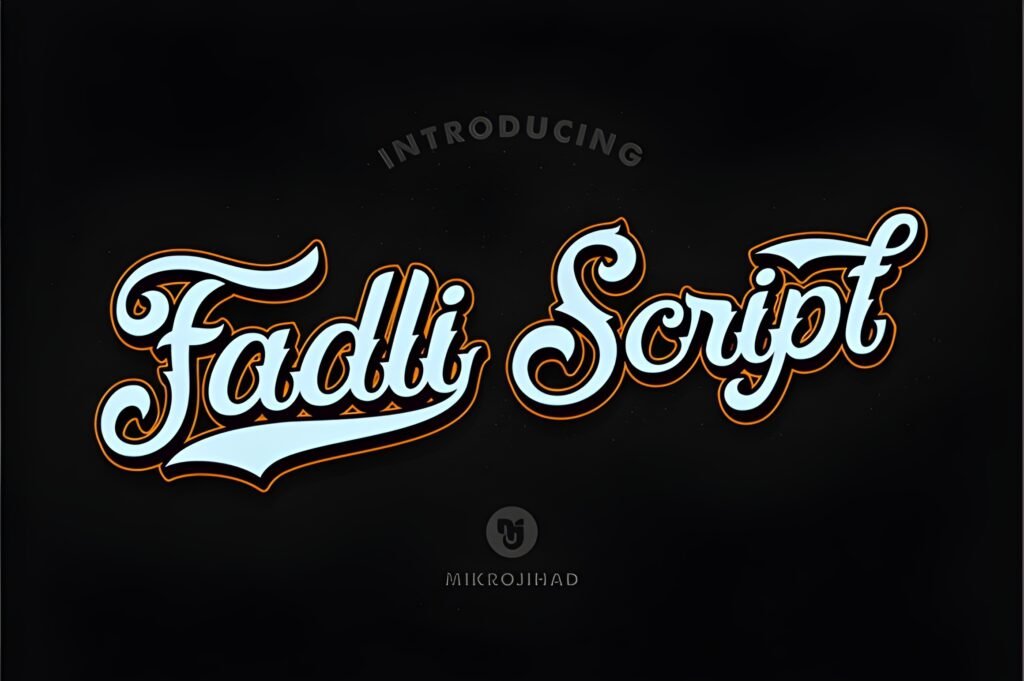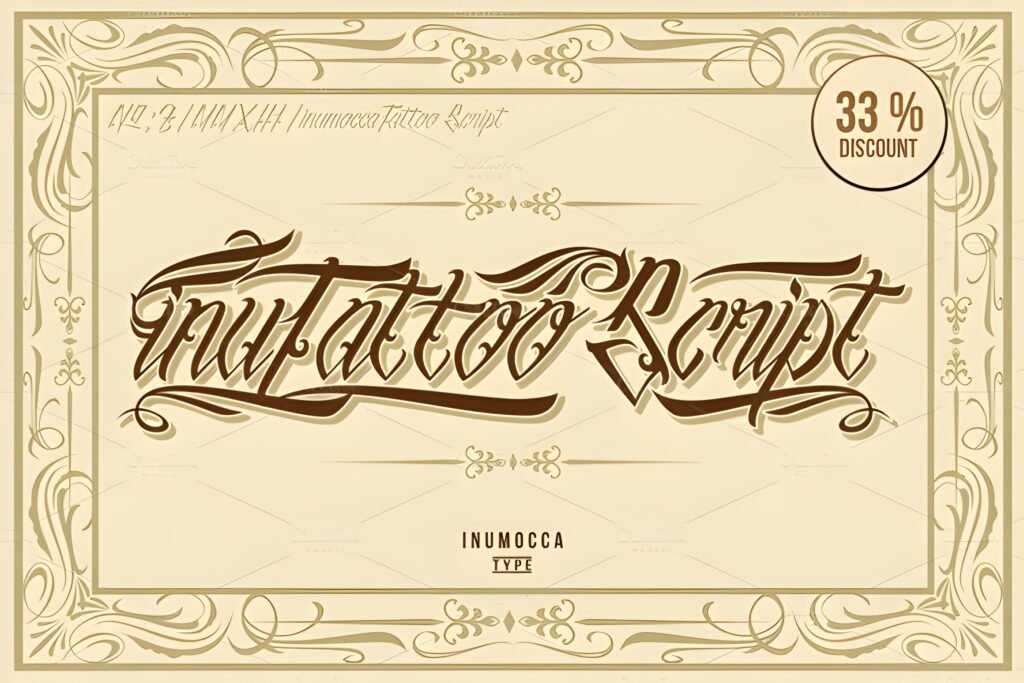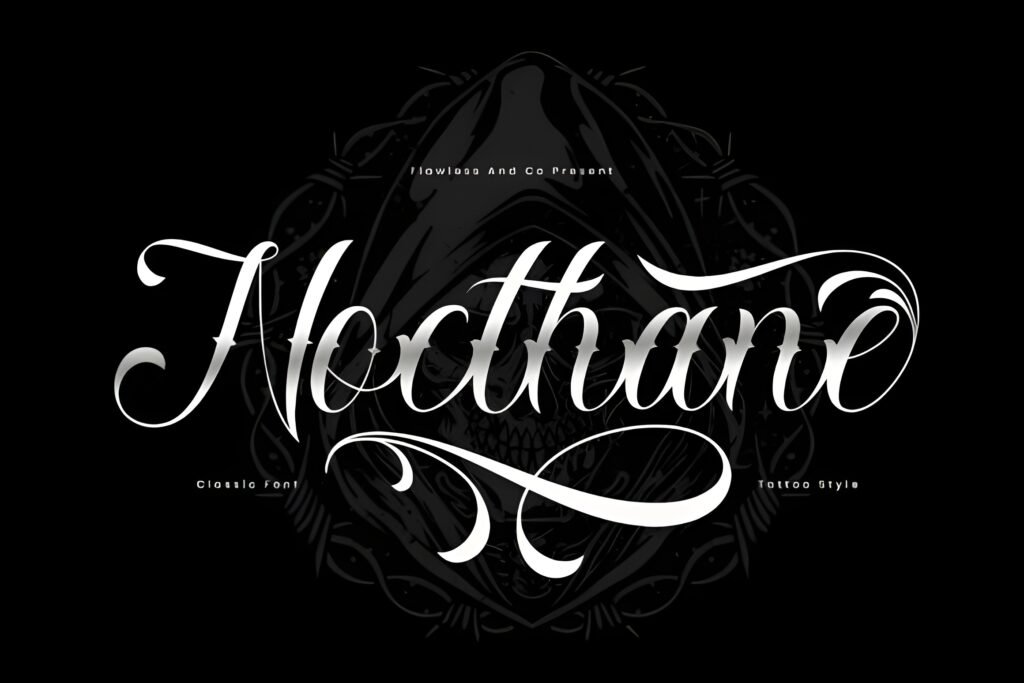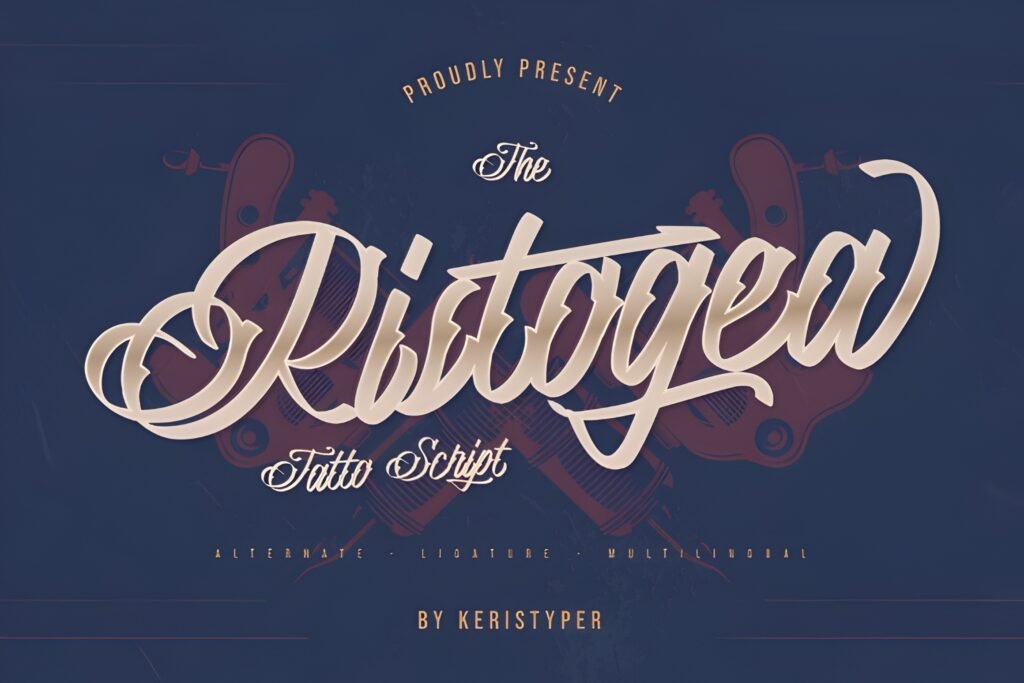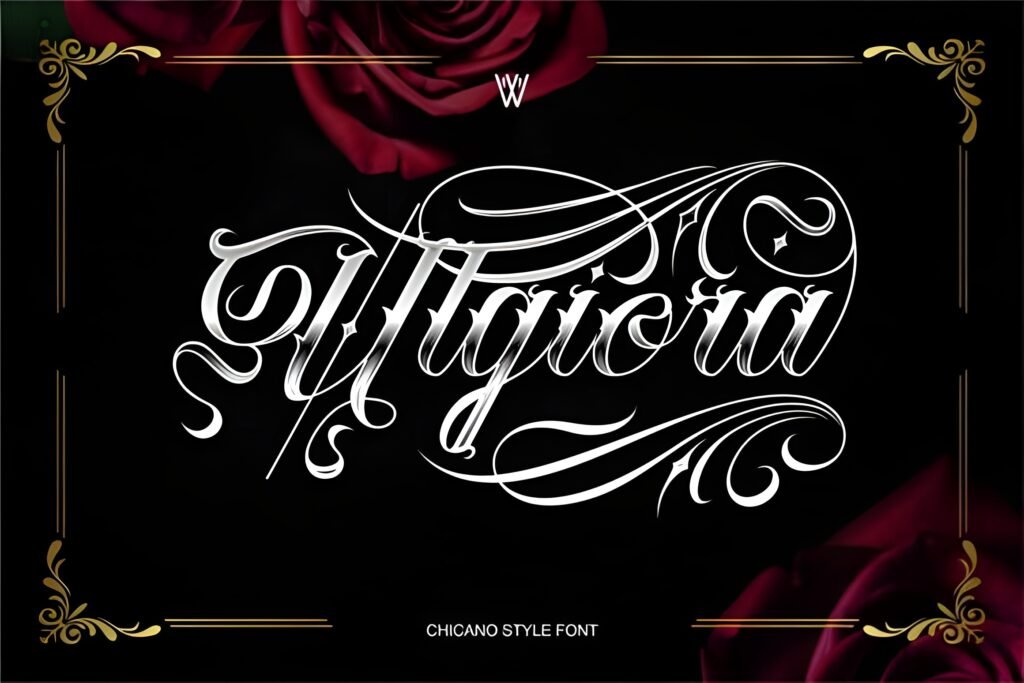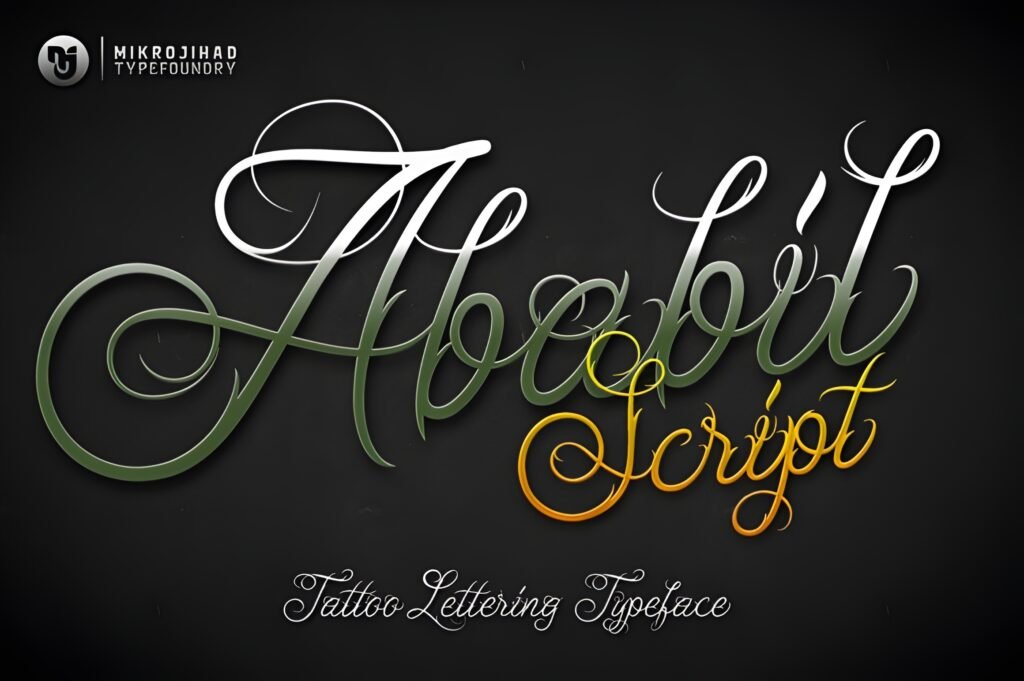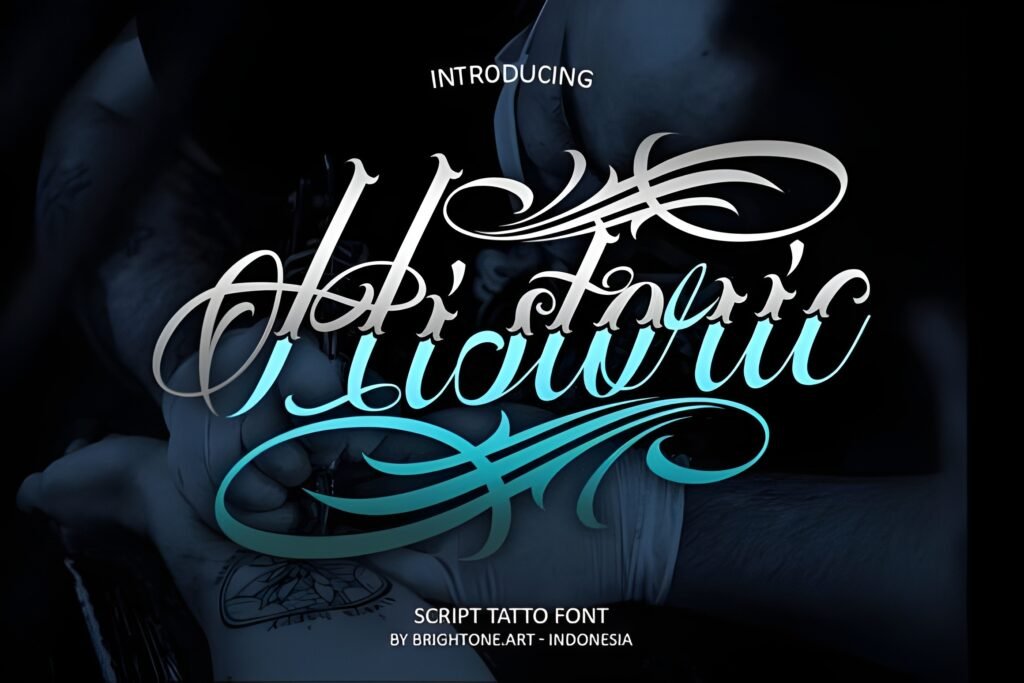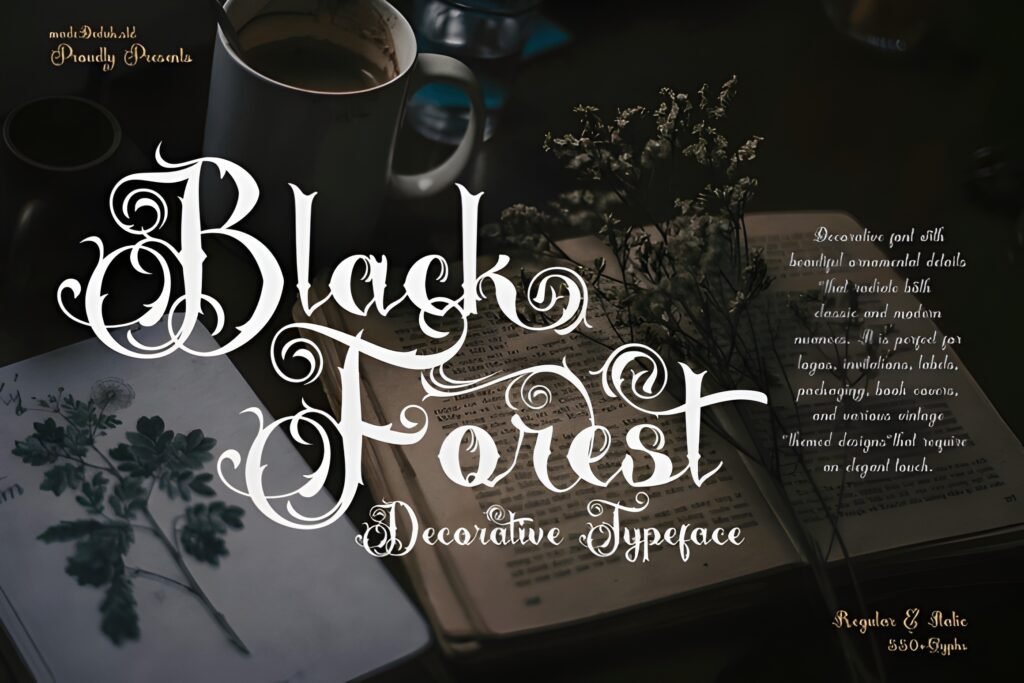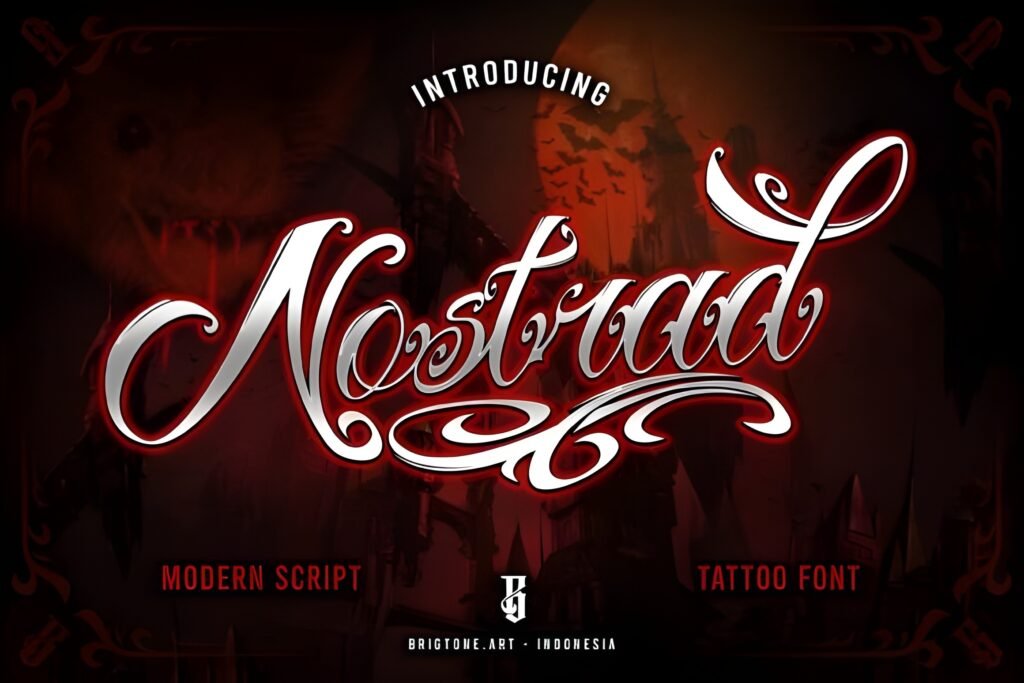
16 Best Script Font Styles for Tattoos
If you ask me what makes a script tattoo font worth using, the answer is never just “it looks cool.” A good tattoo-style script has to hold shape, flow naturally, and keep its character even when the design moves from a bold forearm piece to a small word under the collarbone. In a real tattoo workflow, that matters more than trendy swashes or flashy specimen images.
So in this guide, I’m sharing 16 script font styles for tattoos that I would actually consider when planning lettering-focused work. Some lean clean and elegant. Some are stronger for Chicano-inspired compositions. Some are better for names, quotes, or statement words. And a few are more decorative, which means they need a careful hand and the right placement to really work.
Quick Comparison Table
| Font | Best for | Style direction | My quick take |
|---|---|---|---|
| Chicago Font | Bold statement words, strong placements | Chicano / blackletter influence | Best when you want attitude and a heavy visual presence |
| Tattoo Lettering Font | Classic tattoo-style title lettering | Lettering / decorative display | A strong centerpiece font for poster-like tattoo compositions |
| Fadli Script Font | Names, quotes, elegant personal pieces | Smooth cursive script | One of the most usable options for refined script tattoos |
| InuTattoo Script Font | Tattoo-specific lettering looks | Tattoo script | One of the most on-theme fonts in the entire list |
| Ababil Script Full Font | Elegant script tattoos, refined names | Classic calligraphic script | A polished choice for graceful lettering with personality |
| Chicano Font | Lowrider and Chicano-inspired tattoo work | Chicano script | A top pick for bold cultural mood and strong lettering identity |
| Loyalty Chicano Font | Big statement pieces, sleeve or chest lettering | Blackletter / lowrider / tattoo style | The boldest top-tier option here for Chicano-inspired designs |
How I Choose Script Fonts for Tattoo Work
When I review script fonts for tattoo use, I judge them a little differently from someone building a logo or poster. In tattoo design, the line weight, spacing, and rhythm of the letters matter more because skin changes everything. A script that looks polished on a clean digital page can close up, lose contrast, or become unreadable once it’s scaled down or wrapped across a body contour.
- Readability first: if the word cannot be read quickly, it will age badly as a tattoo concept.
- Stroke consistency: I want a script that keeps its personality without collapsing into decorative noise.
- Spacing and flow: letters need room to breathe, especially in names and short quotes.
- Placement awareness: some fonts belong on ribs, chest, or forearm; others need bigger, flatter placements.
- Style honesty: Chicano, cursive, and ornamental scripts all behave differently. I’d rather match the style honestly than force one font to do everything.
That’s the mindset behind the recommendations below. I’m not ranking these as “best fonts on the internet.” I’m judging how usable and convincing they feel when the end goal is tattoo-inspired lettering.
The 16 Fonts I’d Actually Review for Tattoo-Style Lettering
1) Chicago Font
- Best for: bold headline words, old-school inspired script statements
- Quick tip: I’d keep this to short phrases and let the attitude carry the design
Chicago Font is the kind of pick I’d reach for when a client wants a strong, confident wordmark feel rather than a delicate handwritten look. It leans toward a tougher visual voice, so I’d use it for bigger placements, statement pieces, or supporting lettering inside a more traditional black-and-grey composition.
I would not force this into a tiny quote tattoo. Where it shines is in one to three words with enough room to let the shape breathe. Think loyalty, family, city names, crew-style statements, or a dominant header above a secondary script line.
2) Tattoo Lettering Font
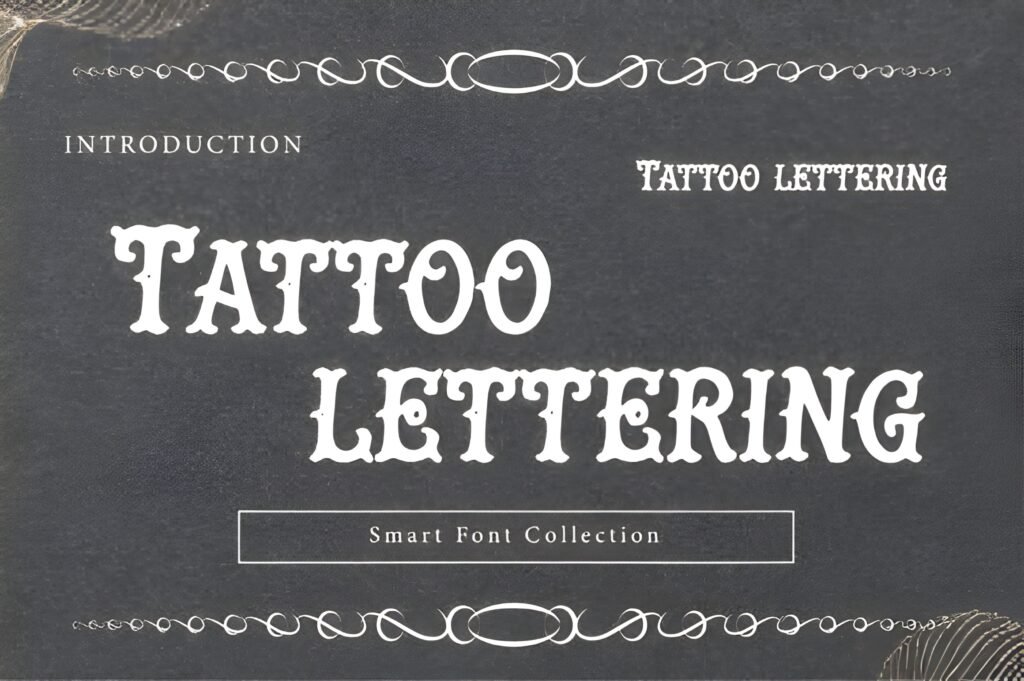
- Best for: display-style tattoo titles, poster-inspired compositions
- Quick tip: I’d use it as a featured title rather than body-length lettering
This one has a more stylized, title-card energy. Even from the name alone, it’s clearly trying to live in the tattoo-lettering world, but I see it more as a design accent than a universal script workhorse. That is not a flaw. It just means you need to match it to the right project.
Should I use one of these fonts exactly as-is for a tattoo stencil?
Usually no. A strong tattoo design still needs customization. Font references are useful for direction, rhythm, and styling, but the final stencil should be adjusted for placement, spacing, scale, and long-term readability on skin.